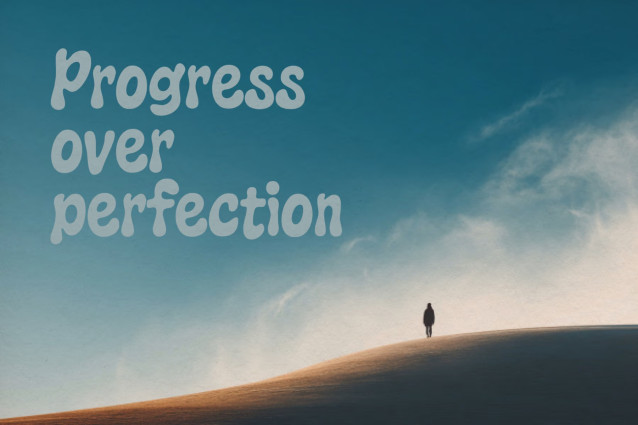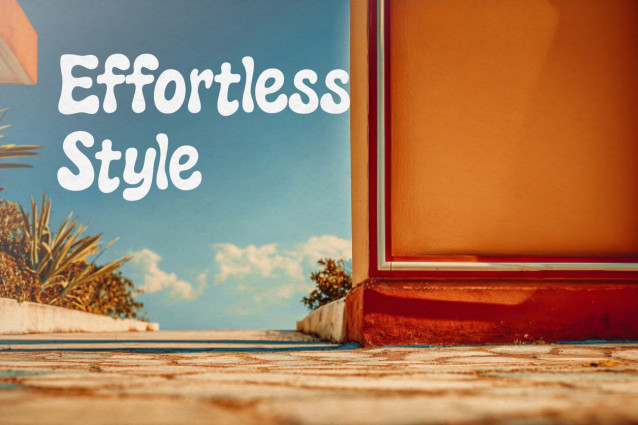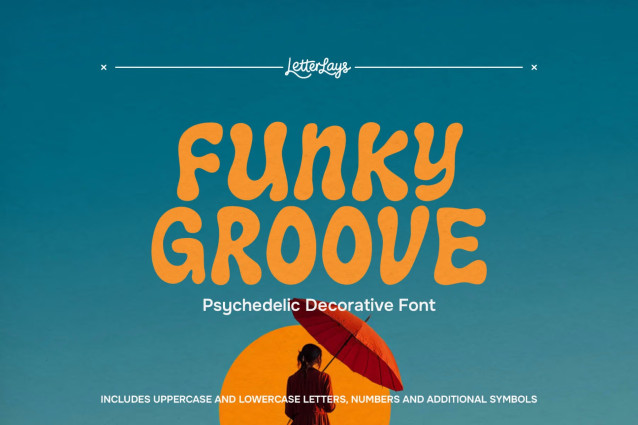
Funky Groove is a funky retro display font with groovy retro rhythm, playful 70s attitude, and bold music-poster personality. It is ideal for retro posters, music covers, festival graphics, party flyers, funky logos, merch designs, social media headlines, and playful packaging, as well as branding, packaging, posters, labels, social graphics, and creative display typography.
🎨 Use Funky Groove when your design needs a distinctive title style, a memorable product name, or a custom typographic mood that feels aligned with the visual world of the project.
The font includes uppercase and lowercase letters, numbers, punctuation, and additional symbols shown in the previews. 💛